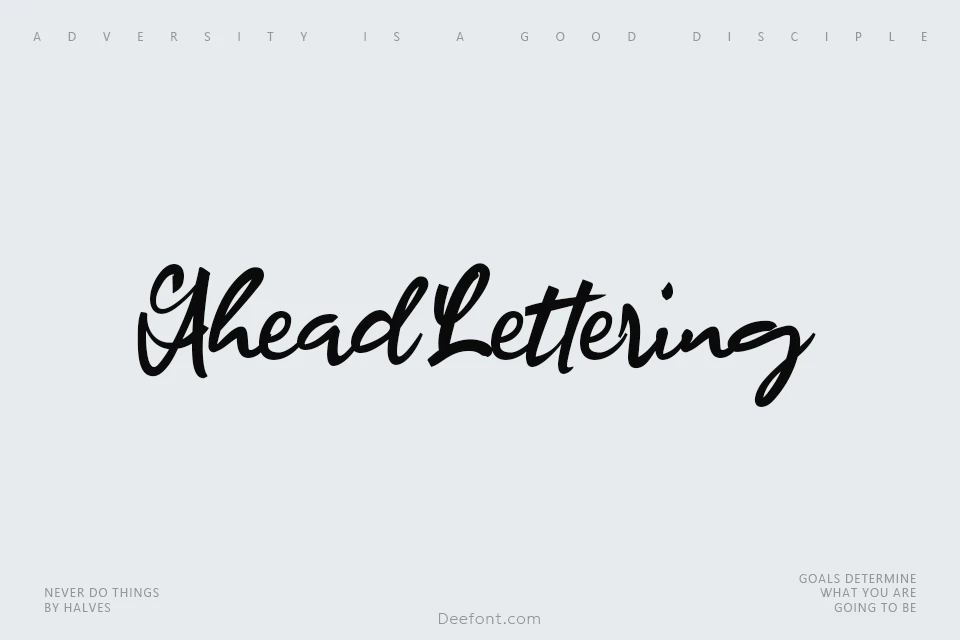
Ahead Lettering Font
Ahead Lettering Font is a captivating script typeface designed by wep, characterized by flowing, connected strokes and a casual, handwritten feel. Its gentle curves evoke elegance while maintaining an informal, approachable style. This versatile font is ideal for headings, logos, and designs requiring a touch of relaxed sophistication. Its compatibility across devices ensures seamless integration into digital and print media, from wedding invitations to modern branding materials, adding a personal and artistic touch to any design.